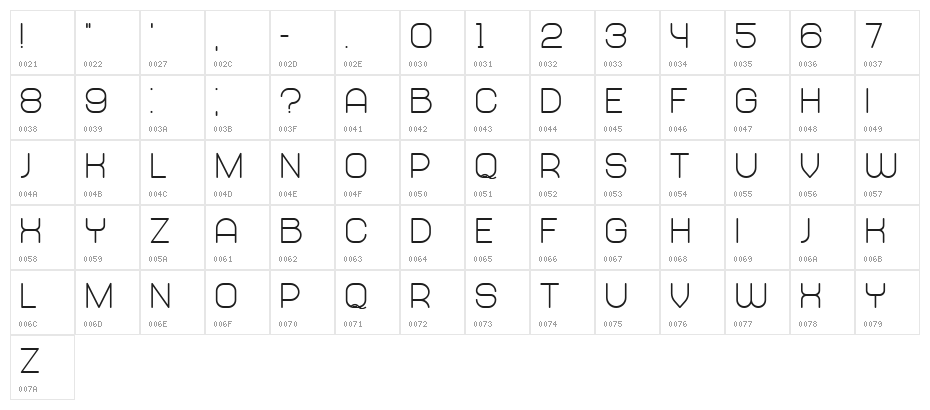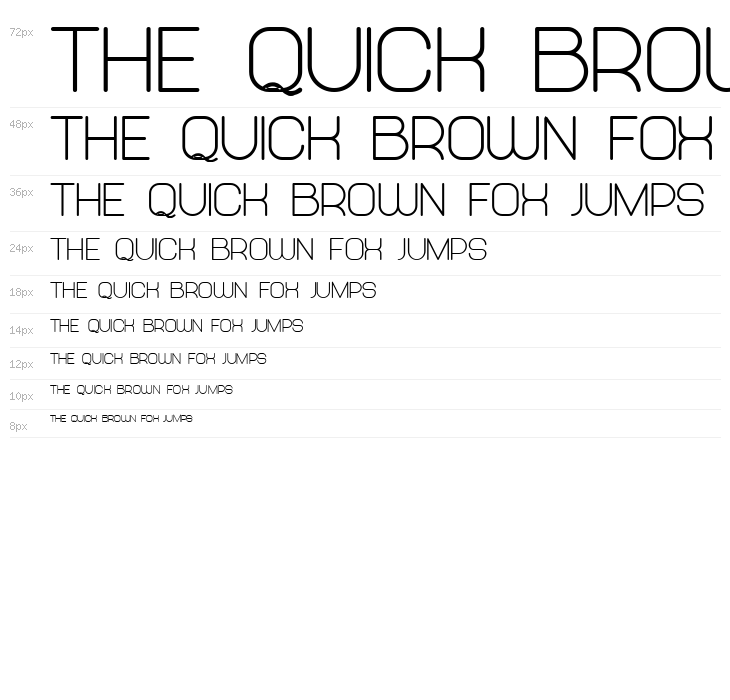
Abandoned Bold Font
Abandoned Bold Description
This font features a modern and sleek design with clean lines and a geometric structure. The characters are constructed with uniform stroke widths, giving it a balanced and harmonious appearance. The uppercase and lowercase letters maintain a consistent style, with rounded edges that soften the overall look. The numerals are clear and easy to read, complementing the alphabetic characters. Special characters are included, maintaining the same design ethos. This font is versatile, suitable for a variety of design projects that require a contemporary and minimalistic touch.
| Use Case | Headlines, Logos, Digital Interfaces |
| Proposed Projects | Ideal for branding, advertising, digital interfaces, and editorial design. |